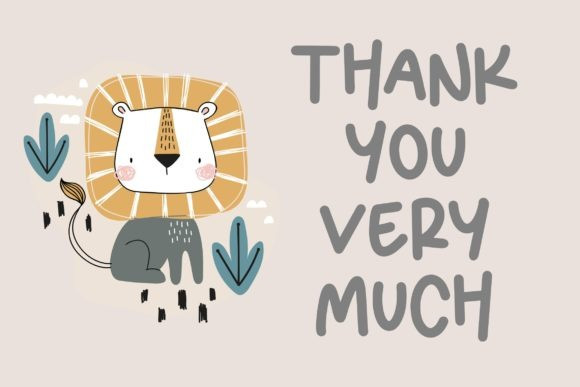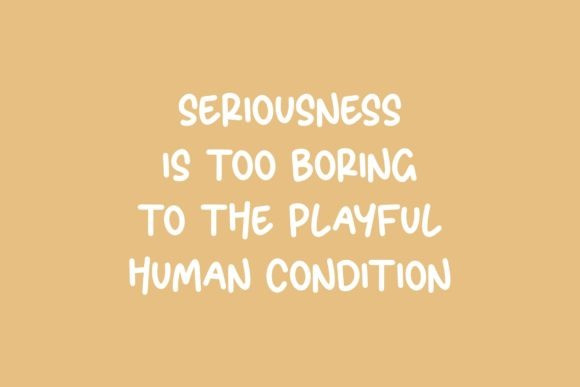
Little Monster Display Font
Little Monster is a playful and fun display font. It is perfect for children book, magazine covers, social media, product packaging, branding projects or just used to express words above the background. It is PUA encoded, which means you can access all of the glyphs and swashes with ease!